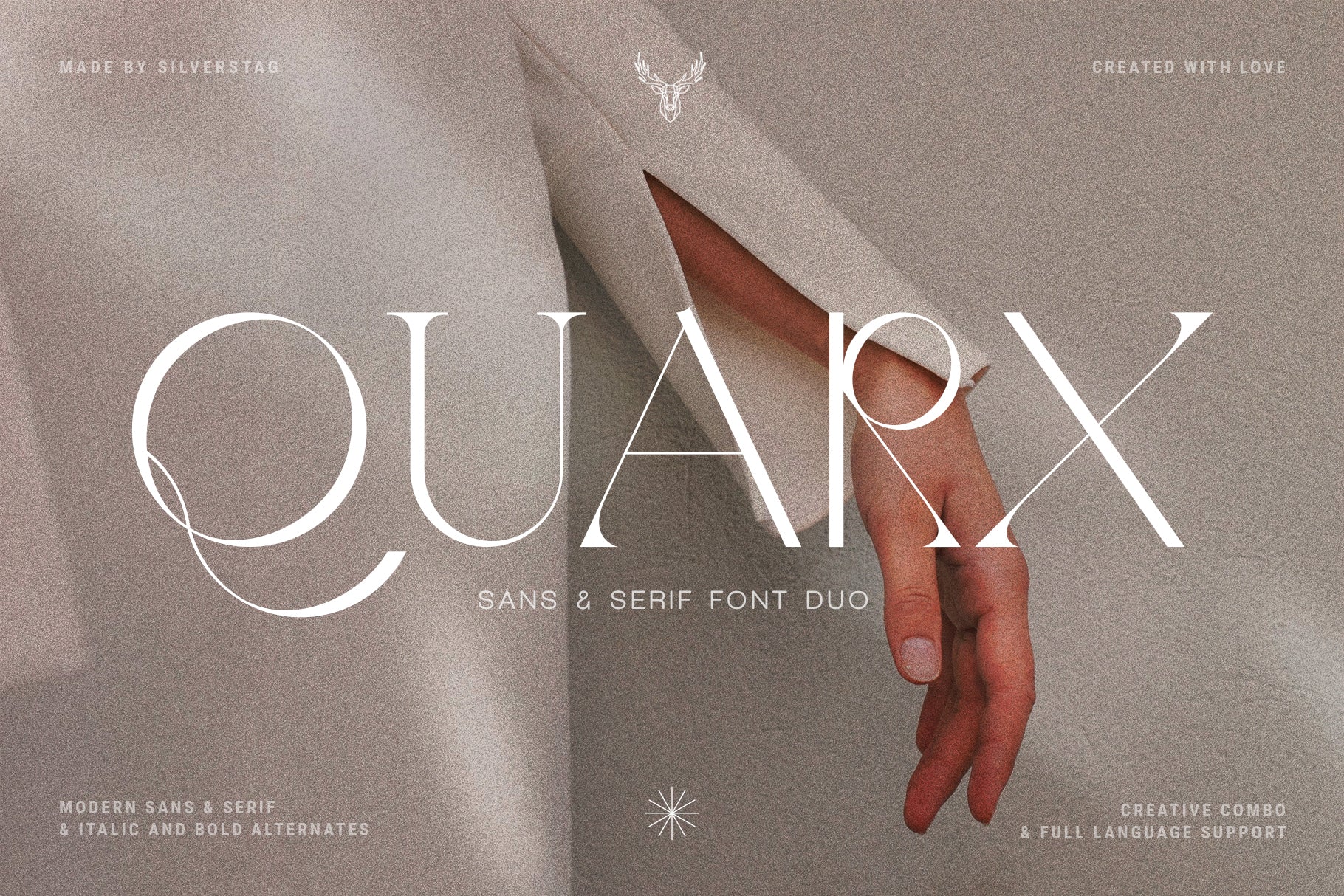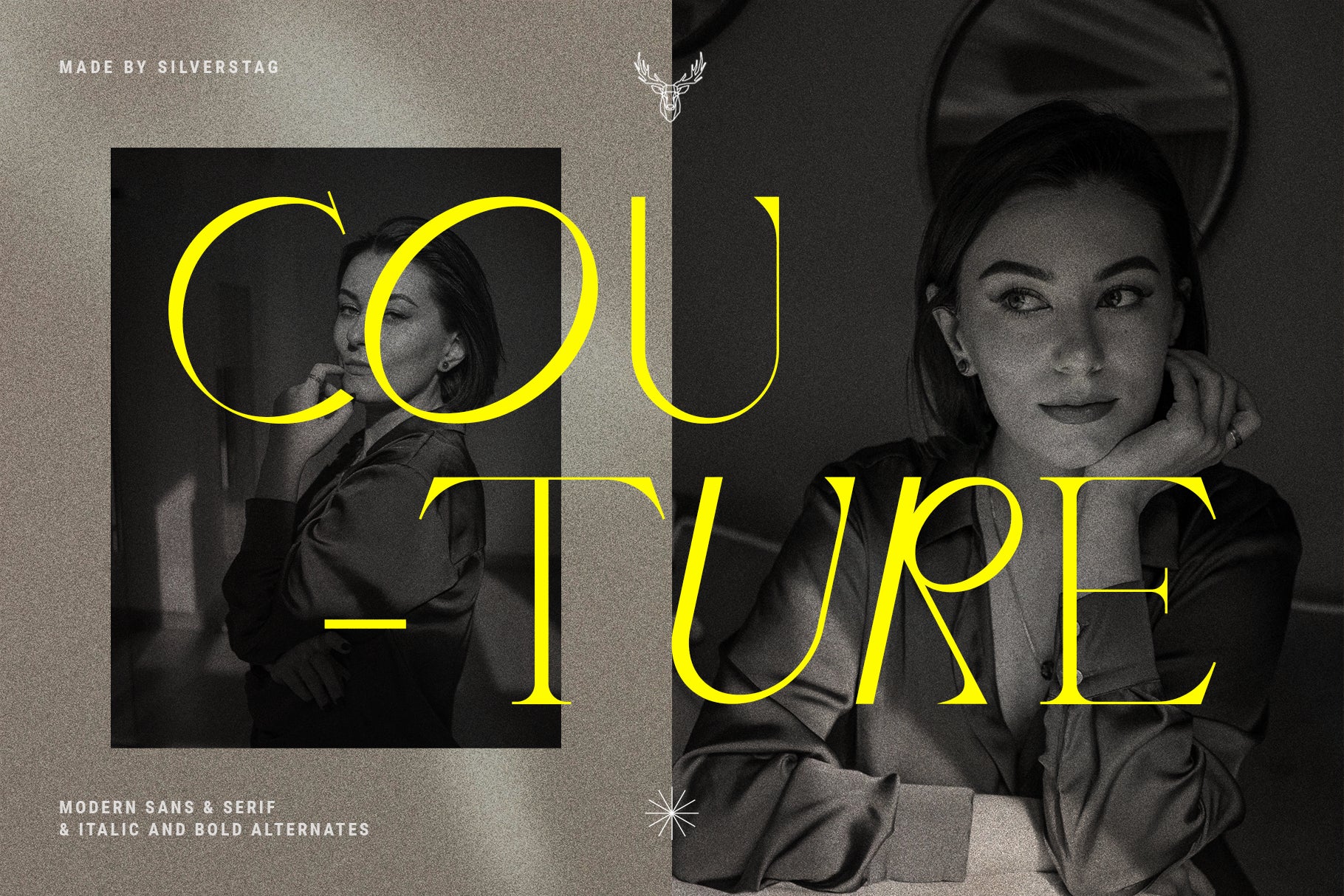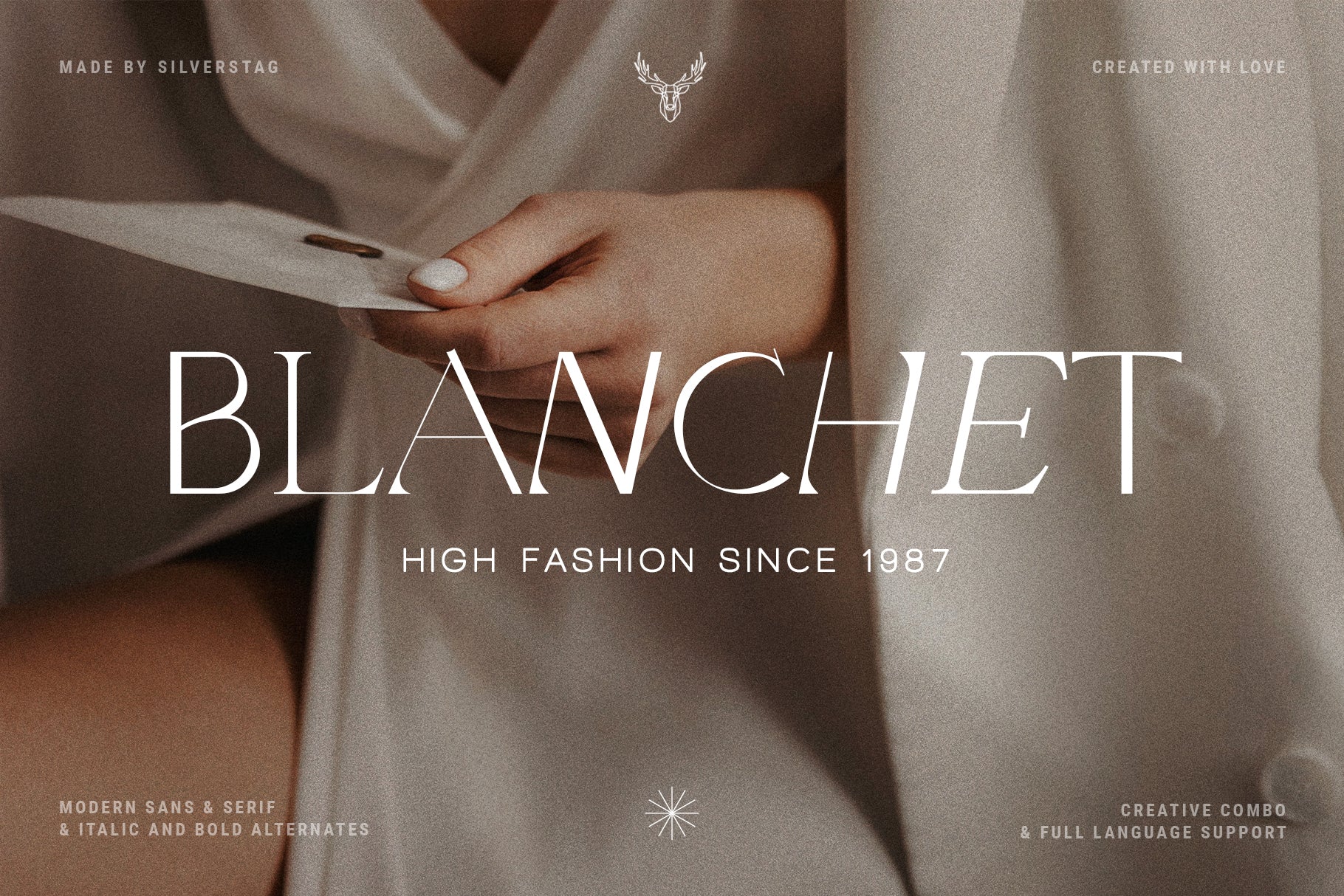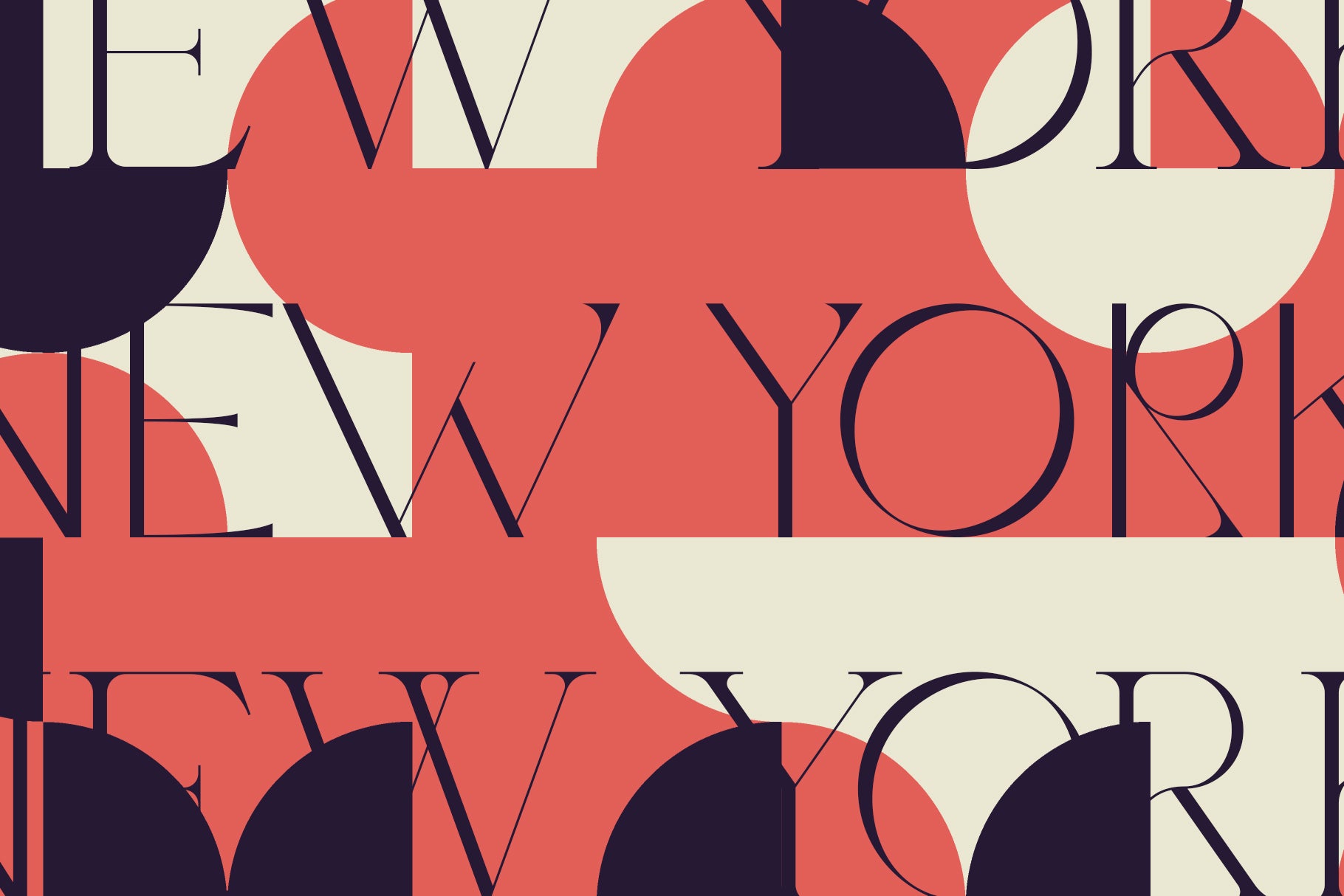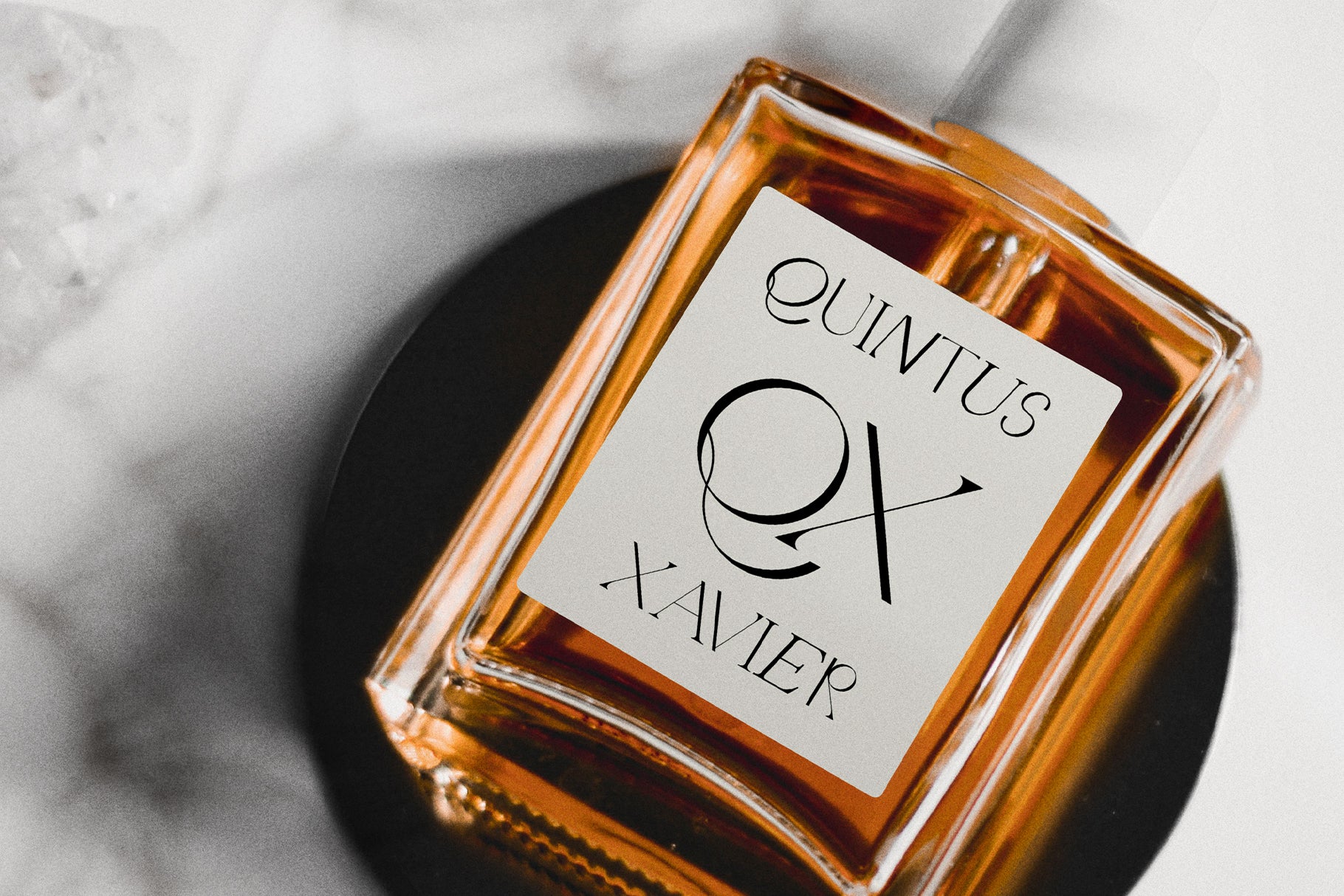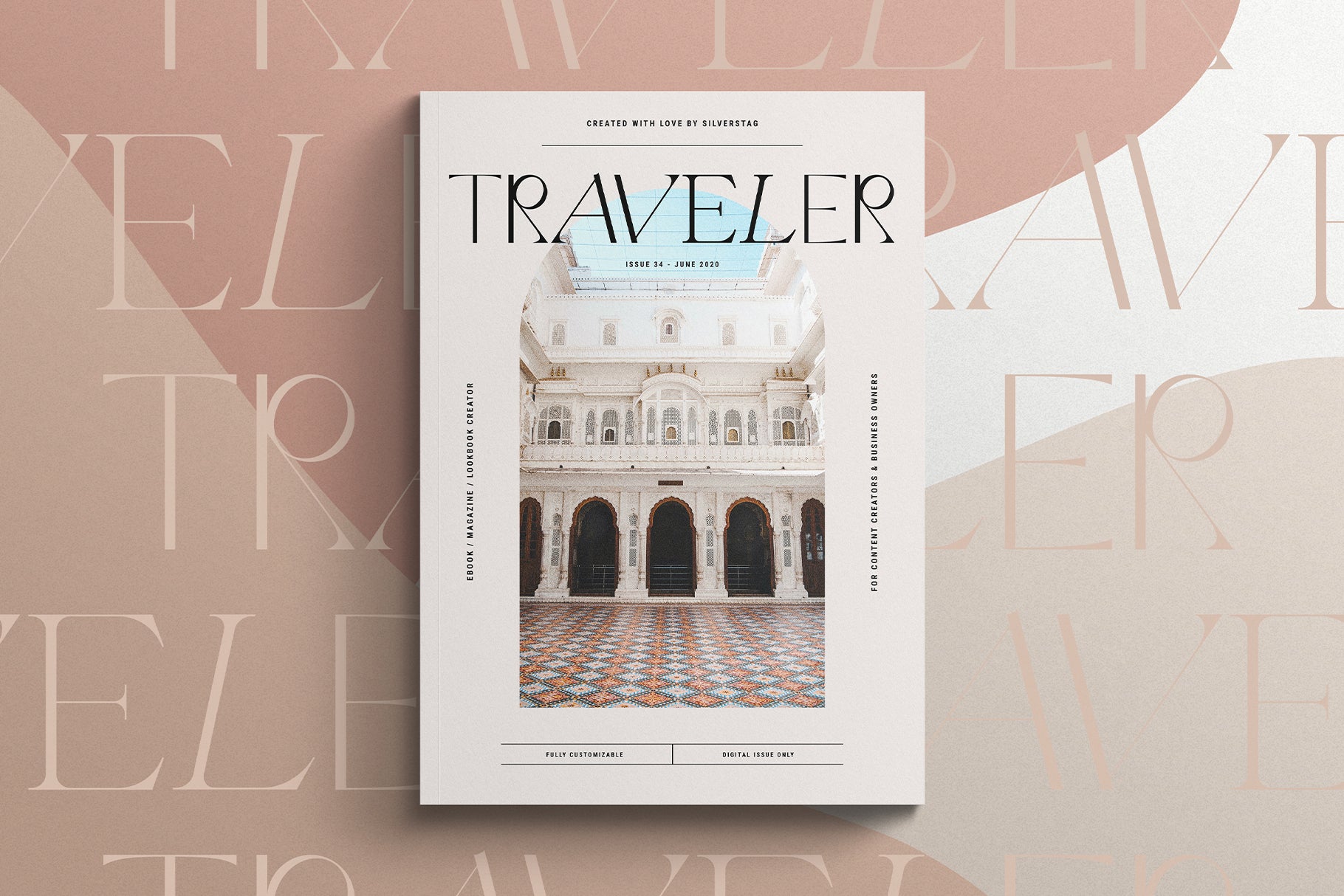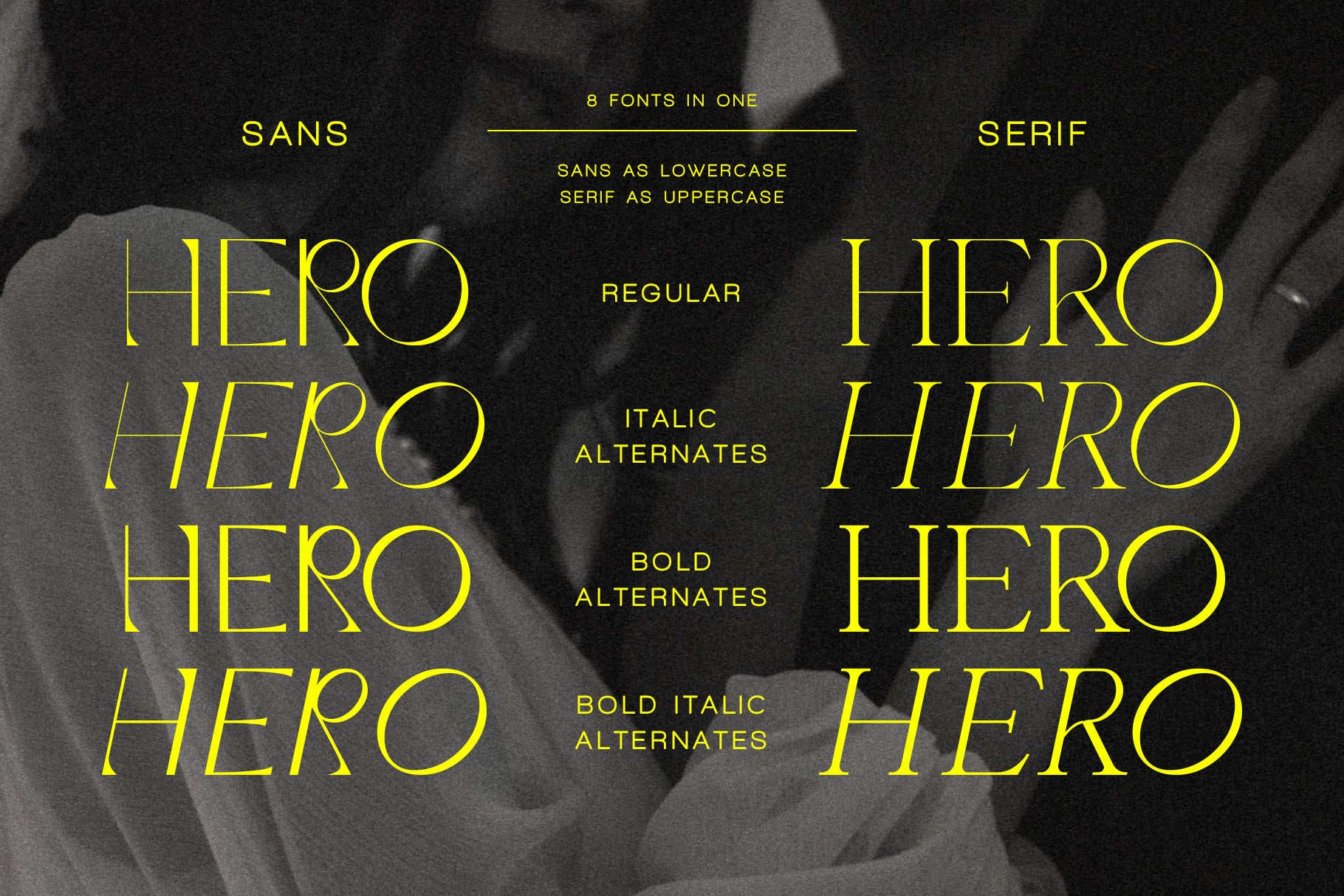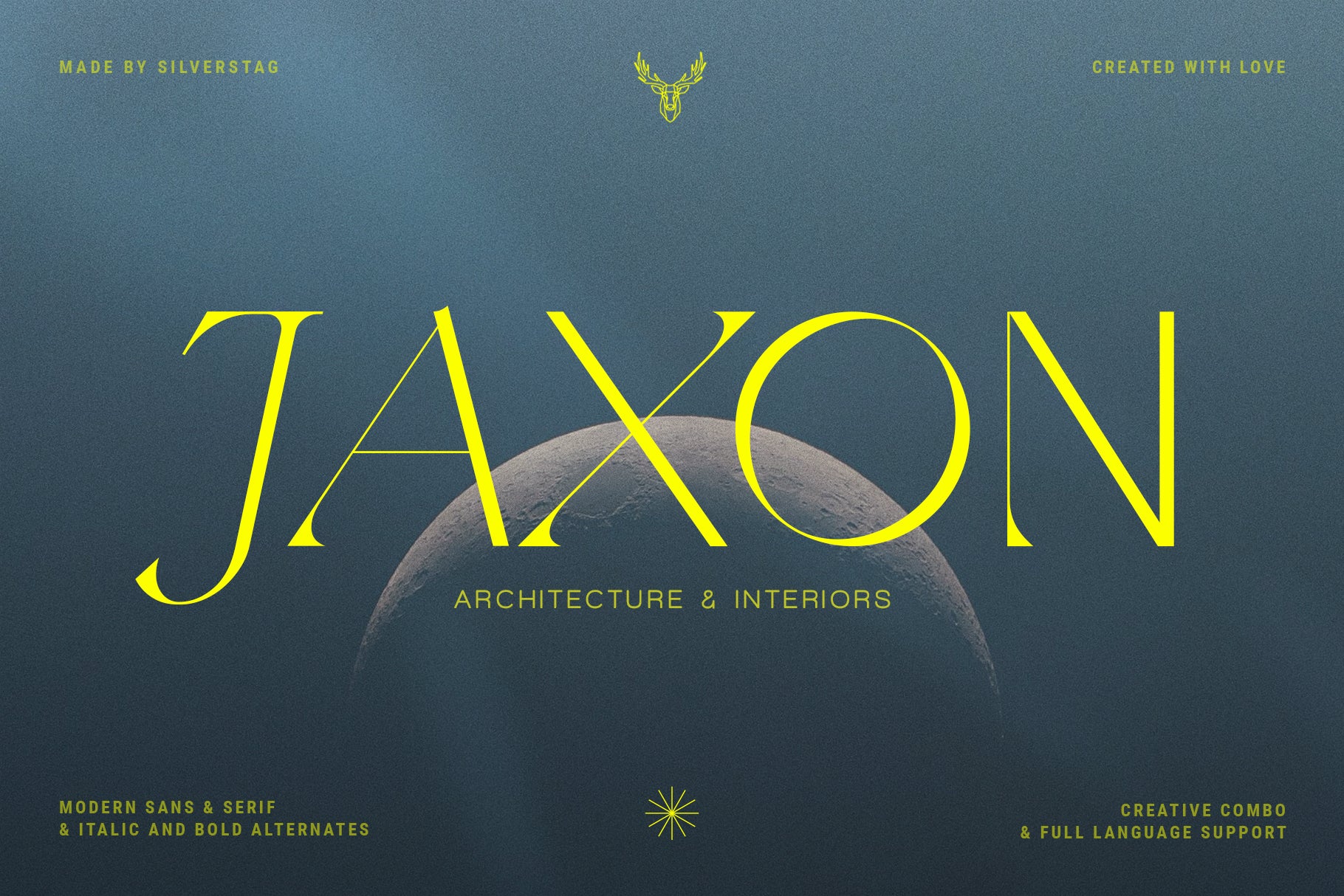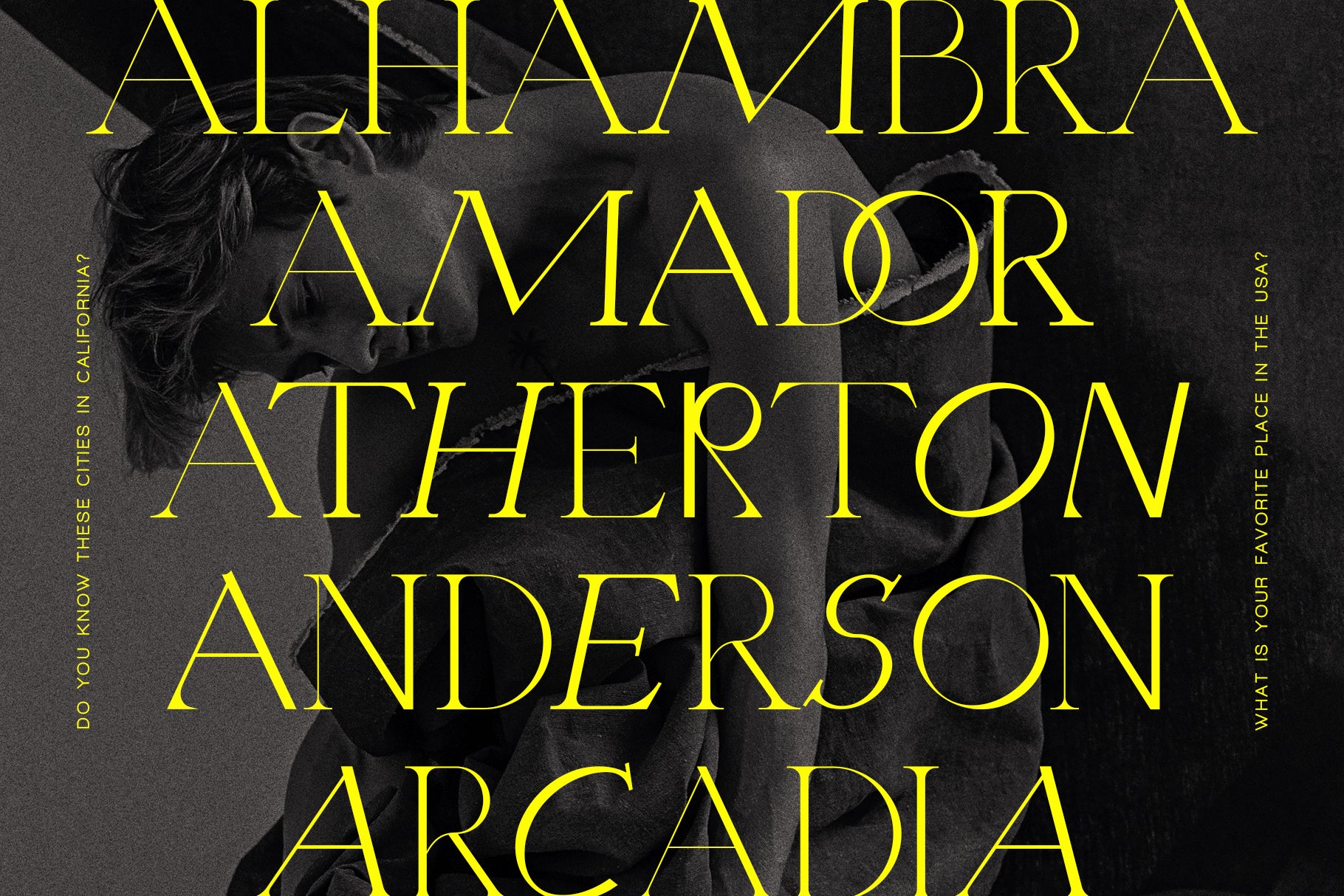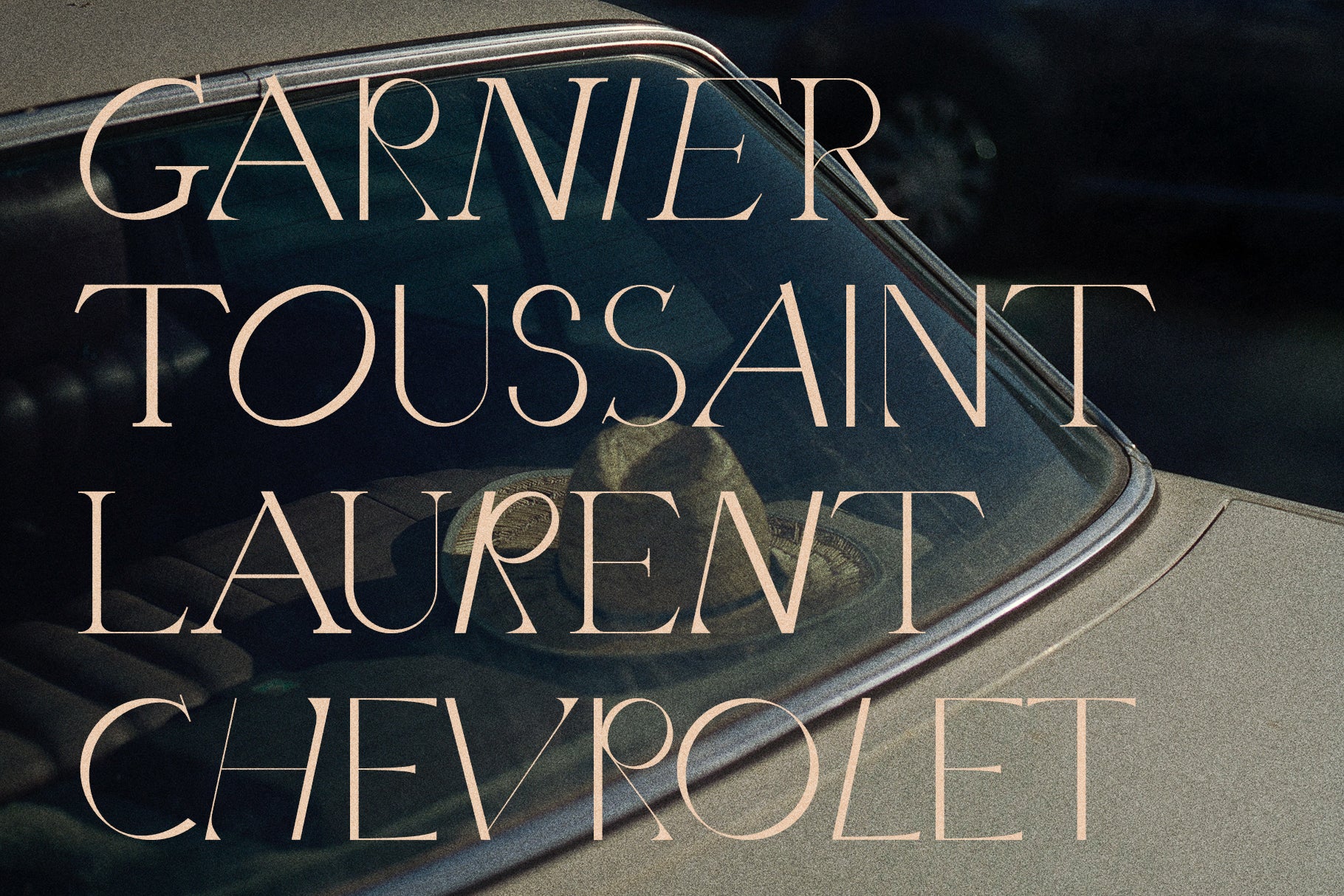
Introducing Quarx, a bold and versatile sans and serif font duo that brings fresh energy to your typography. Quarx is not just a font; it’s an entire creative system packed into a single typeface. Offering regular, italic, bold, and bold italic options for both serif and sans styles, it’s designed to give you maximum flexibility across all your design projects.
Switch effortlessly between styles: type uppercase letters to access the elegant serif, and lowercase letters for the clean, modern sans. Need even more impact? Activate italic, bold, and bold italic versions through alternates to get a full font family experience—all in one seamless typeface.
With its smart structure, contemporary curves, and chic contrasts, Quarx is perfect for logos, editorial layouts, branding, web design, packaging, and everything in between. Whether you’re crafting minimalist designs or bold visual statements, this font duo adapts to your creative vision.
The font also includes full language support, punctuation, numerals, and easy-to-follow instructions on how to use alternates across most apps and Canva.
Elevate your typography with the modern versatility of Quarx.